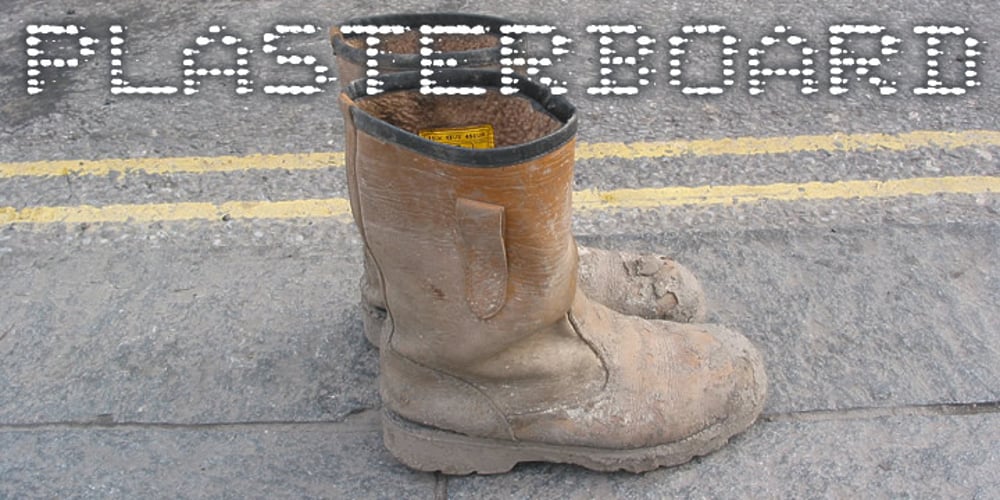
Plasterboard Font Family was designed by published by K-Type. Plasterboard contains 1 styles and family package options. Based on the blobby lettering printed on the sheets of plasterboard (drywall) used in a garage conversion during the summer of 2004.